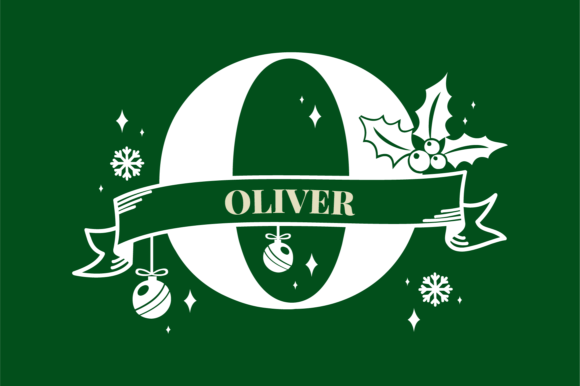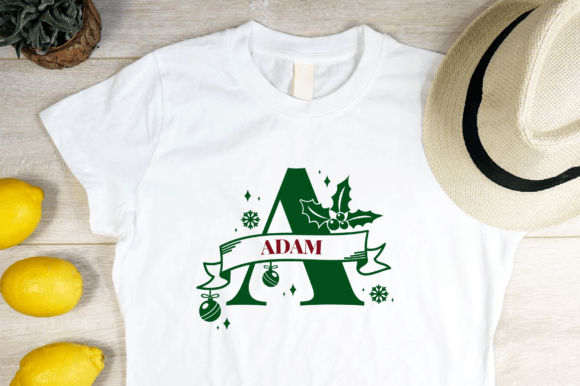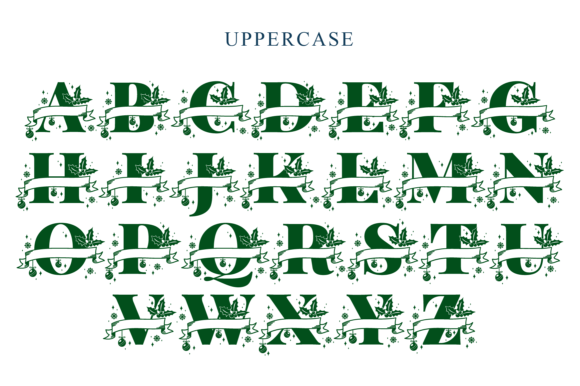
Introduction to Monogram Christmas Font
Monogram Christmas is a festive font perfect for all your Christmas-themed designs.
Each letter is beautifully decorated with holiday elements like holly leaves and ribbons, adding a cheerful touch to your projects Ideal for t-shirts, greeting cards, stickers, and gift tags, this font brings a charming holiday spirit to any creation.
Monogram Christmas Font offers exceptional quality and versatility, making it a valuable addition to your design toolkit. Whether you’re creating for personal projects or commercial use, Monogram Christmas Font delivers professional results.